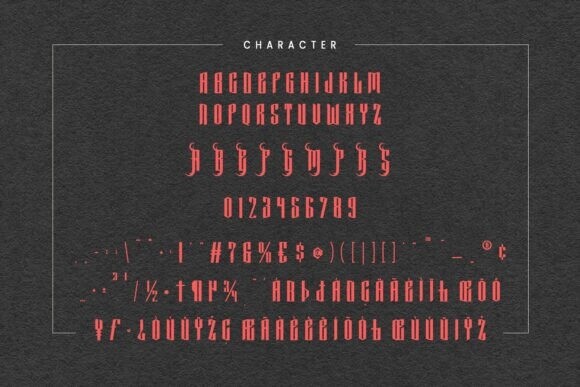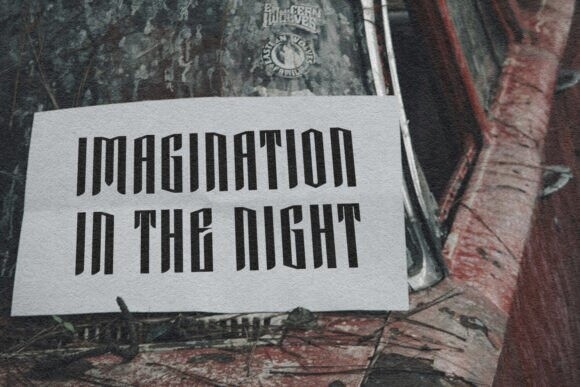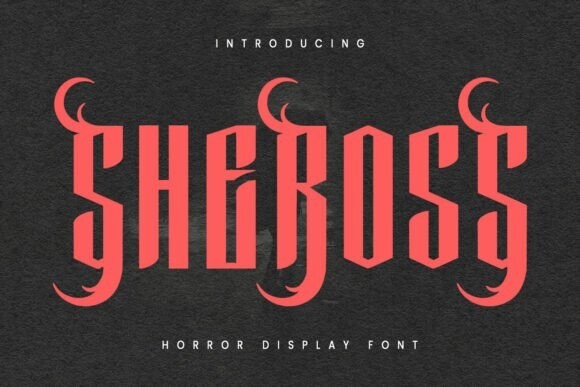
Sheross Font
Designer: Maulana Creative
Sheross Font is a spooky and bold font designed for horror themes. Its sharp, jagged letters give off a creepy vibe, making it perfect for scary posters, haunted designs, or Halloween projects!